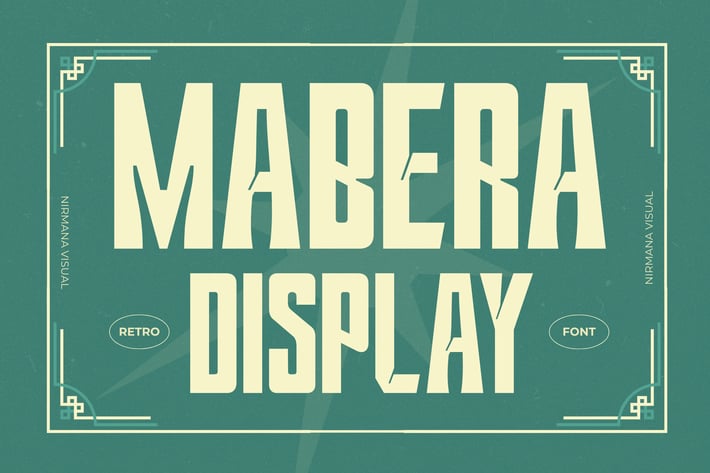
Mabera - Branding Logo Font
Mabera Font offers beautiful typographic harmony for a diversity of design projects, including logos & branding, social media posts, advertisements & product designs.